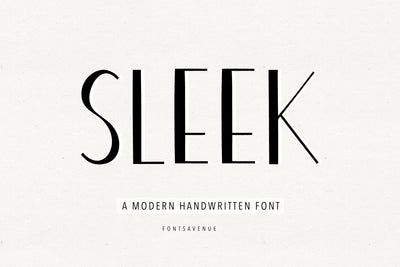
Sleek | Modern Clean Handwritten Font
Sleek is a modern and stylish handwritten font, perfect for invitations, logo design, branding, product packaging, quotes and much more!